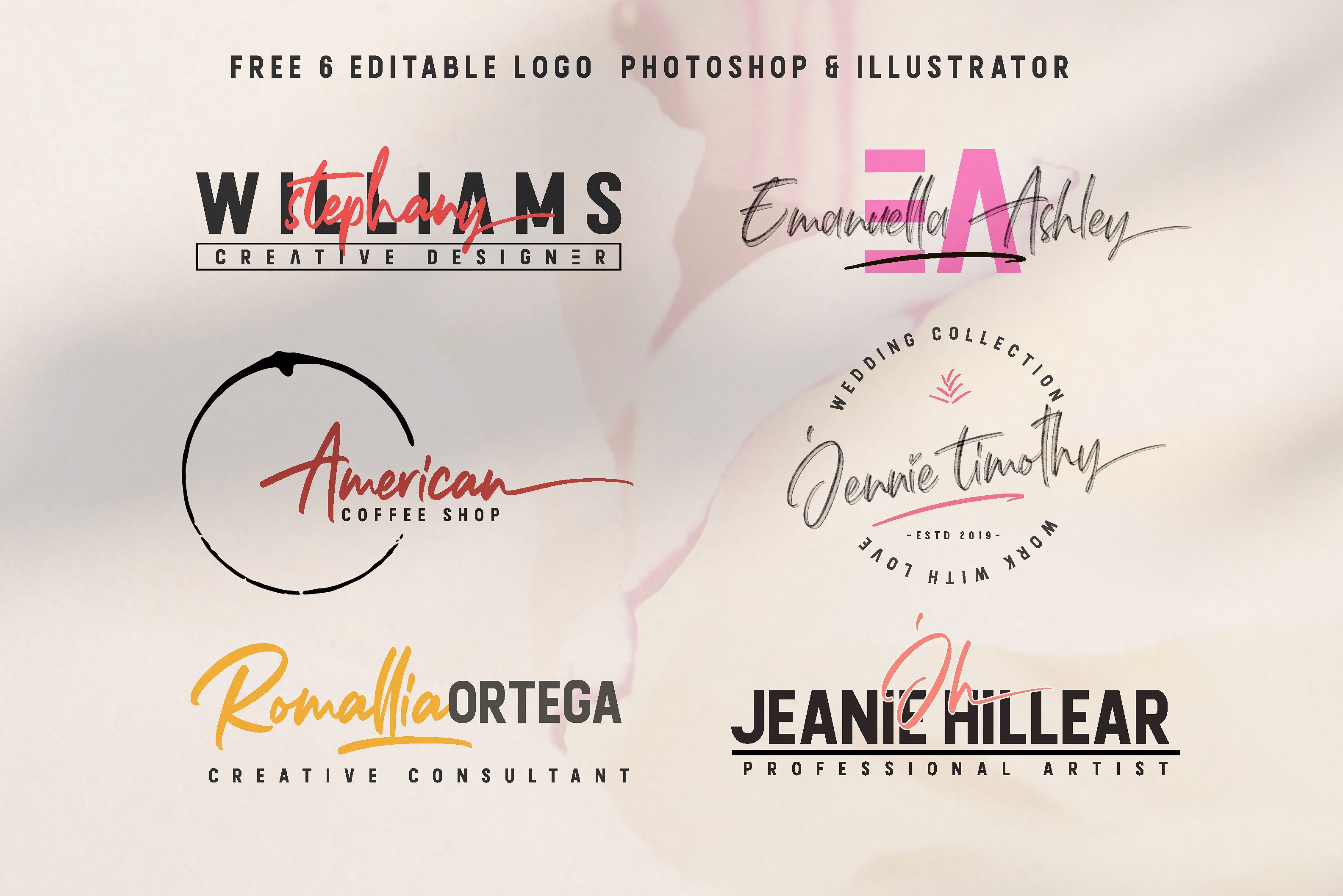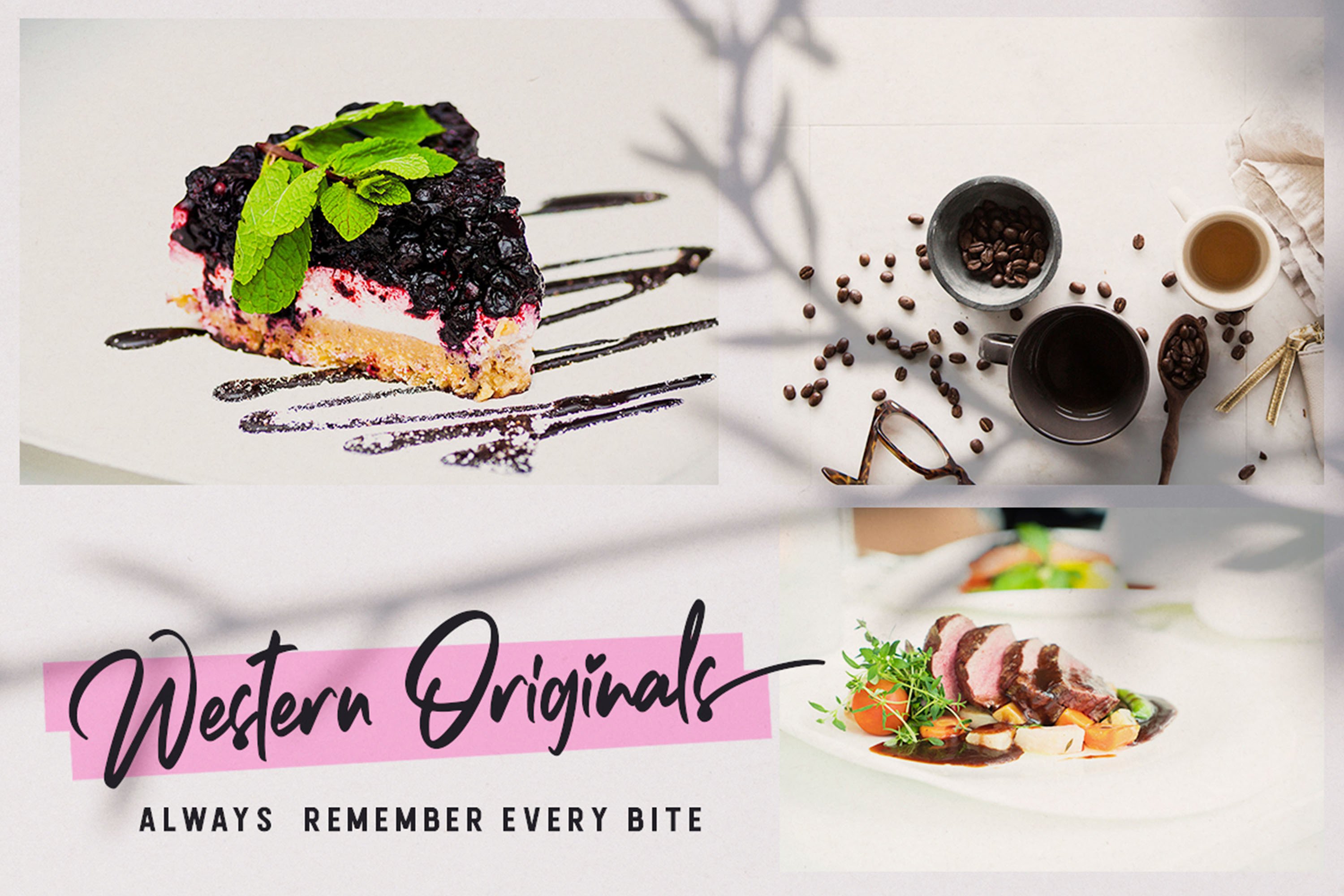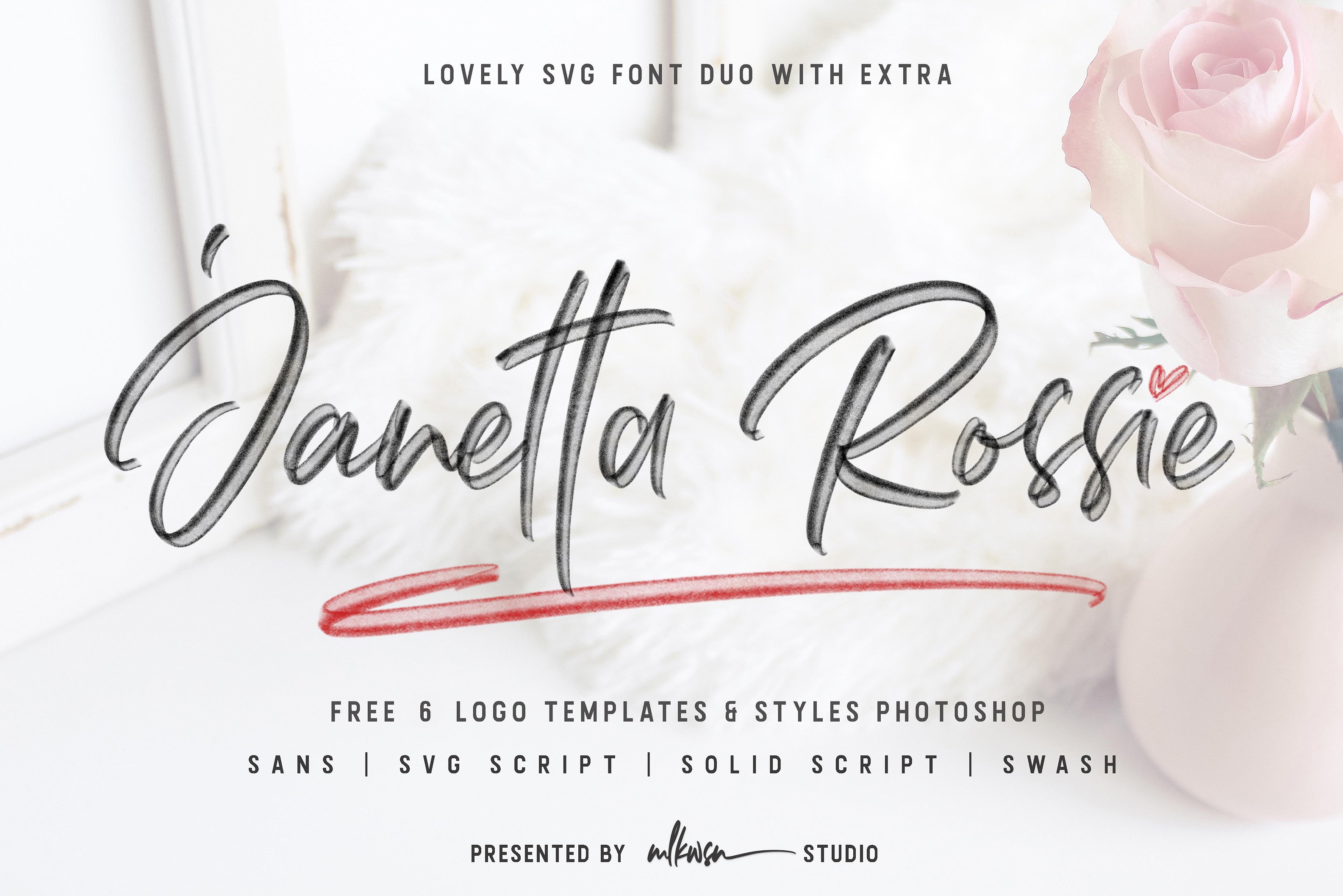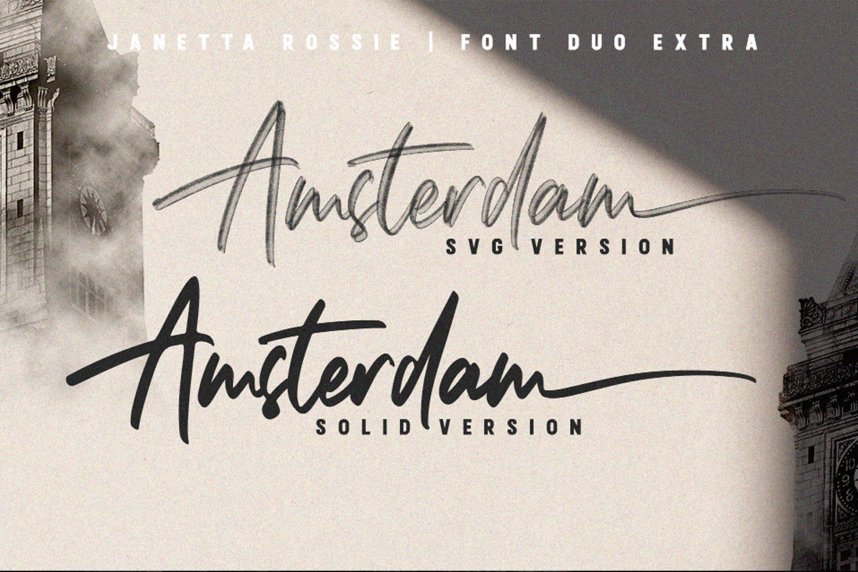
Janetta Rossie Script Font
A new lovely svg font duo with extra. Its classy energetic look makes it the perfect fit for feminine logos. Presenting Janetta Rossie Font. Janetta Rossie Script Font , A Lovely Font duo, SVG opentype with EXTRAS! Janetta Rossie is a Perfect Duo Pairing that contain lowercase, uppercase, symbol, and also support multi language and more ligatures in this font. Janetta Rossie also comes with Swash and doodle font that you can use to make a logo for branding, beautiful fashion design, suitable for wedding invitation, or handwritten quote.